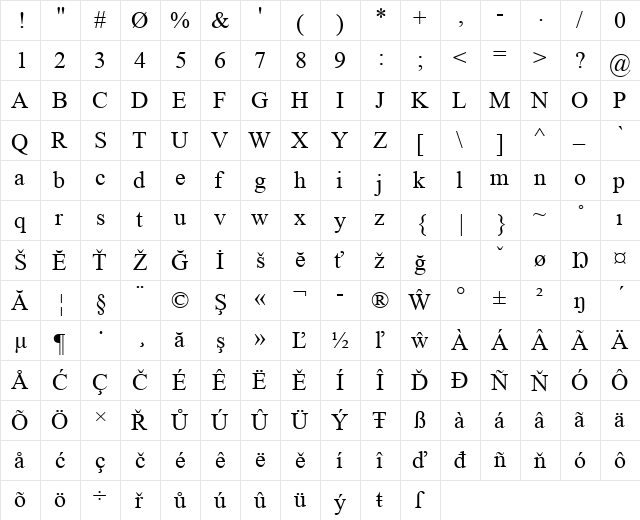
Liborsoft Latin A Regular
Design Context for Liborsoft Latin A Typeface
Liborsoft Latin A offers clean, dependable letterforms without strong stylistic allegiance, making it a practical choice for designers who need flexibility.